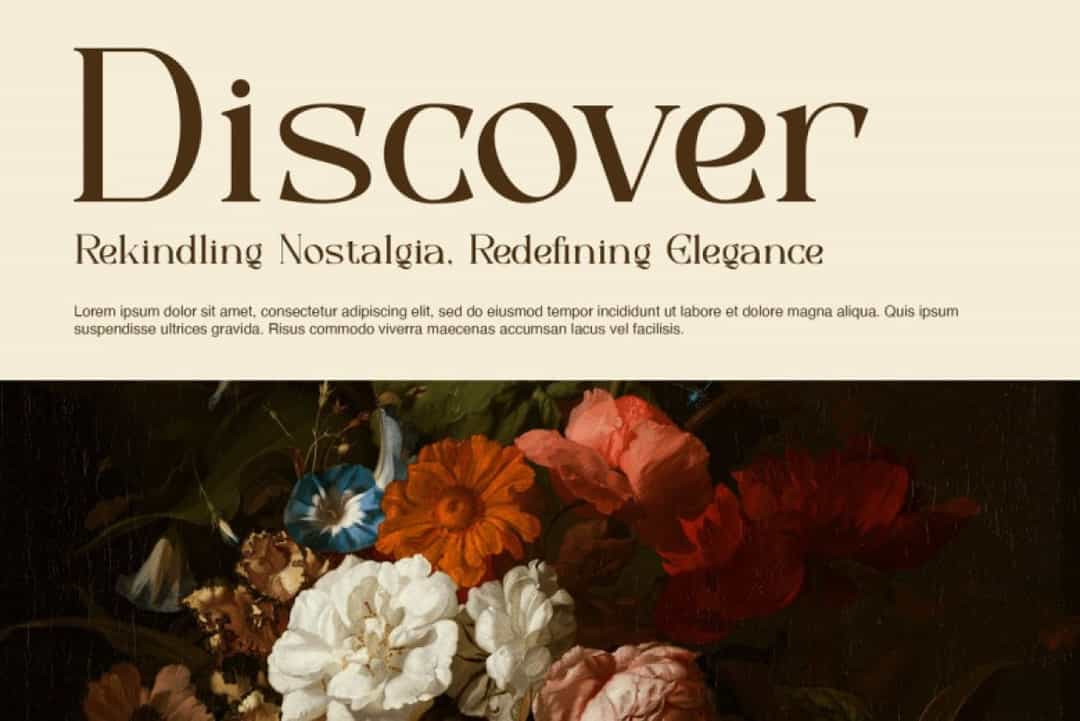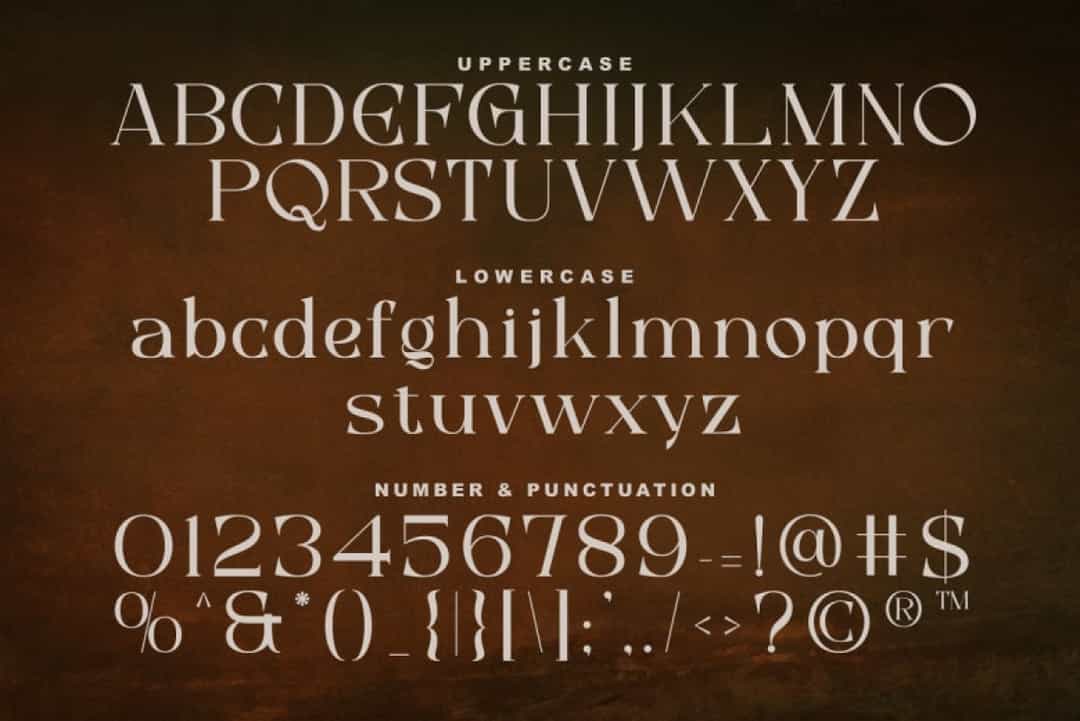
Mayoze is a serif typeface known for its classic and elegant characteristics. The font stands out beautifully from all angles and makes an impactful statement when applied to posters, logos magazines packaging of products or any design needing elegant elements. Furthermore, multilingual support makes this font the ideal choice.